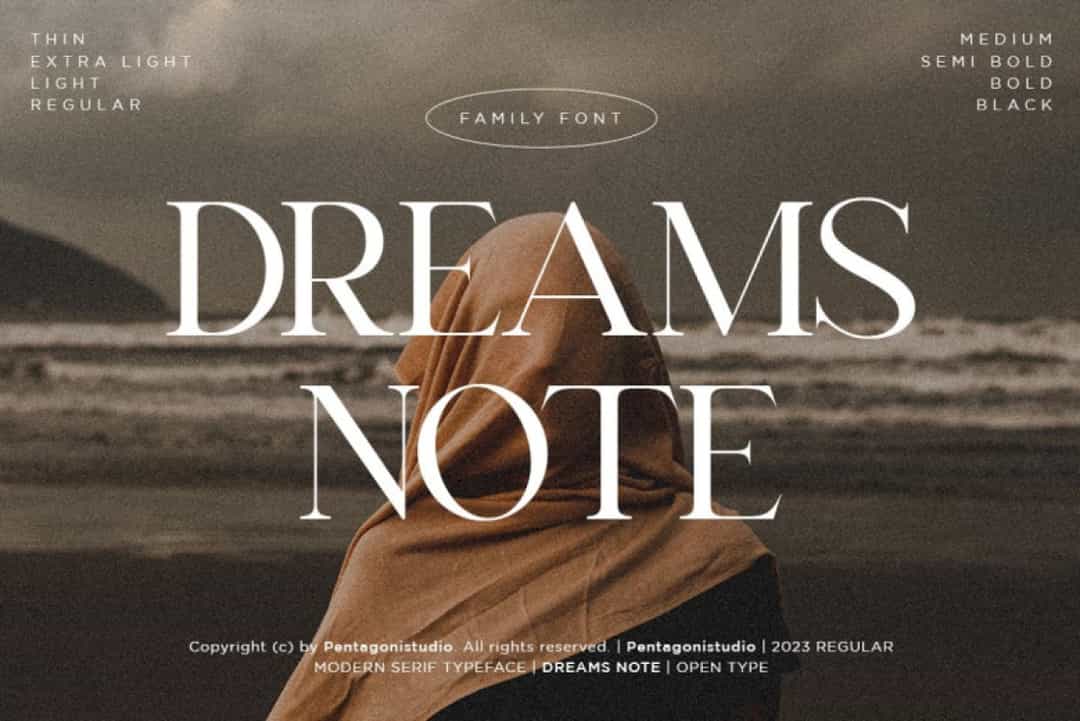
Dreams Note Font is a modern serif typeface family consisting of eight font styles that is ideal for creating stylish logos, movie or book titles, fashion label clothing labels, magazines letters and quotes, among others.